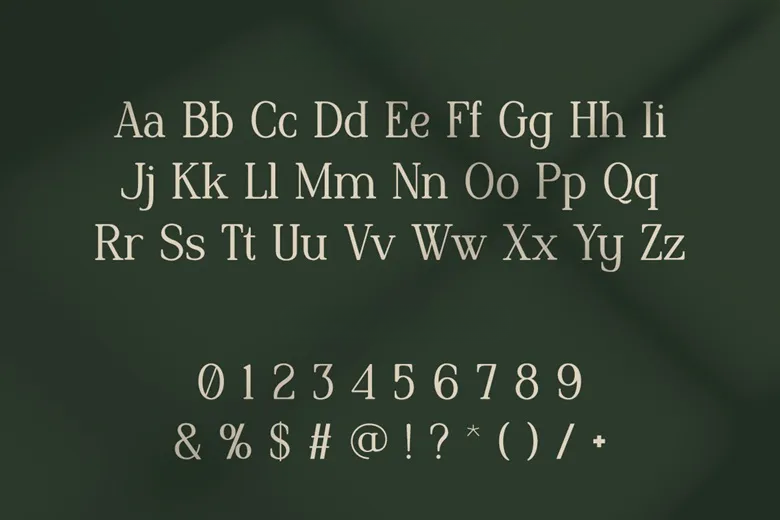
Veloria Font is an elegant and refined serif typeface featuring delicate thin strokes, graceful curves, and a sophisticated high contrast style. Its timeless classic inspired appearance gives every design a luxurious, feminine, and polished look.
This font is a great choice for fashion magazines, luxury branding, high end packaging, editorial spreads, logo designs, and creative projects that need an elegant and upscale visual identity.